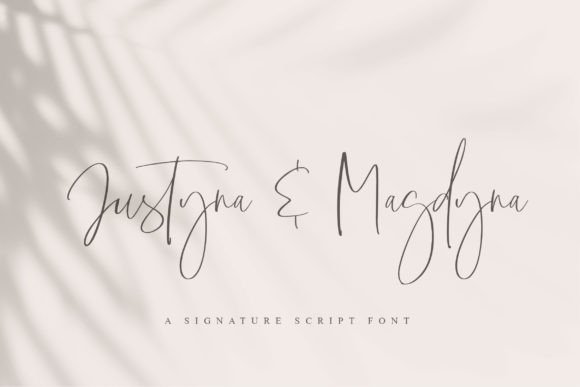
Looking for a way to make your emails stand out? Justyna and Magdyna Font, from the renowned Bellinghamtype design team, might just be the perfect solution for you. This script font family is designed specifically for those looking to elevate their email signatures with a touch of elegance and sophistication.
With its luxurious calligraphic letterforms and sleek styling, Justyna and Magdyna is the perfect choice for anyone looking to add a touch of glamour to their branding, packaging, or wedding invitations. This font family exudes refinement and prestige, making it a must-have for anyone looking to make a lasting impression with their designs.
But Justyna and Magdyna isn't just beautiful—it's also incredibly versatile. Its PUA encoding means that you can access all of its glyphs and swashes with ease, making it a breeze to use in any design project you can imagine.